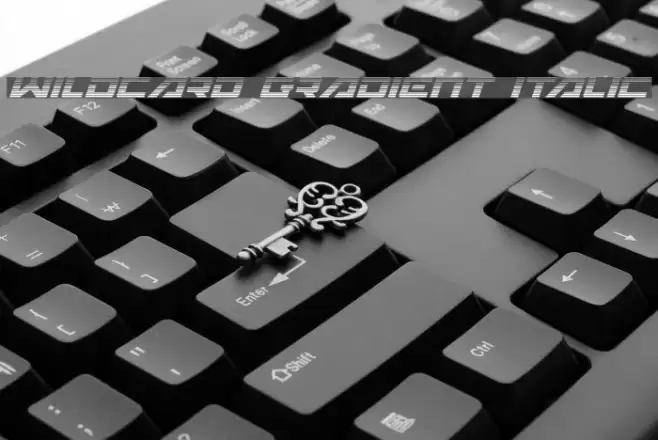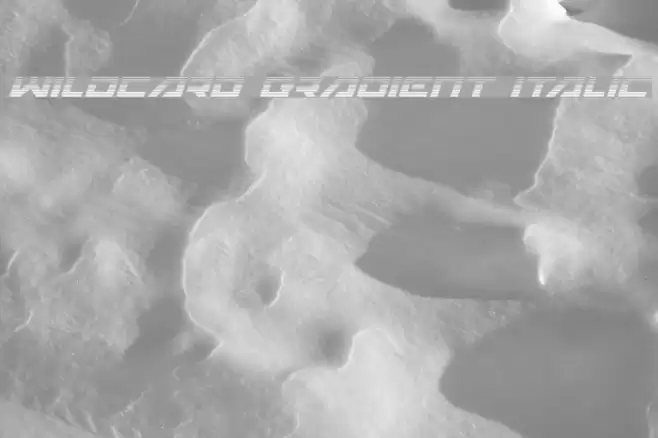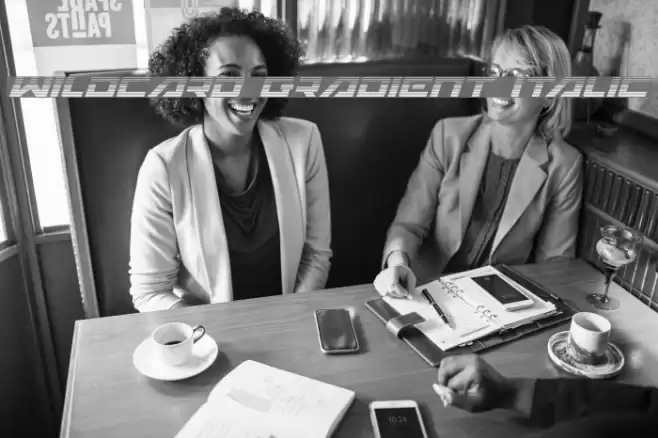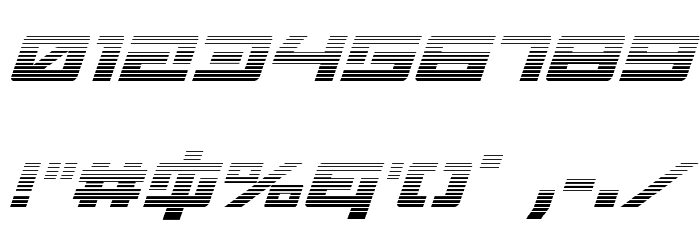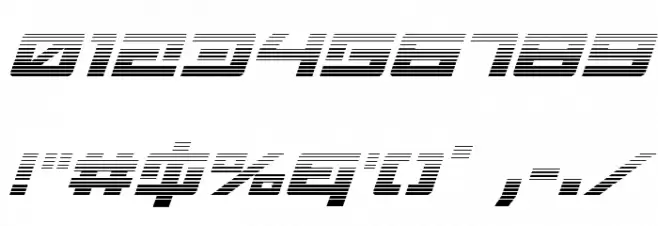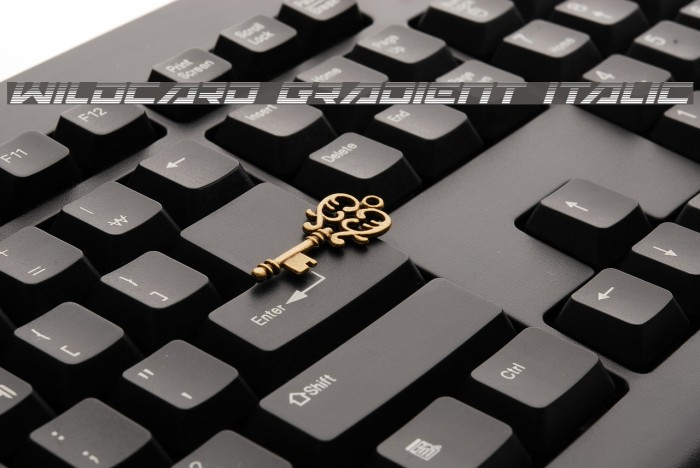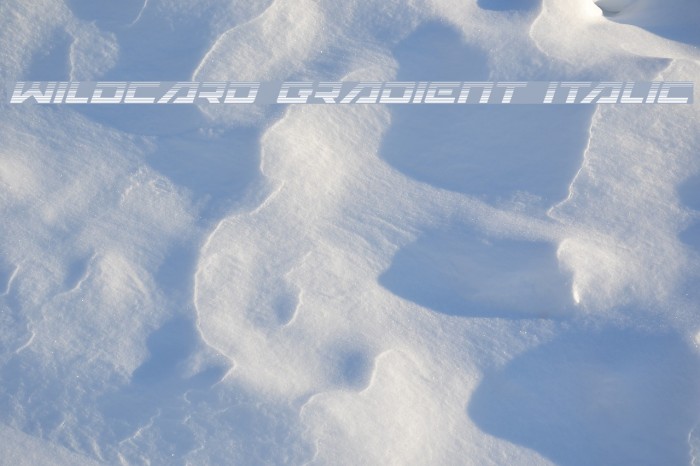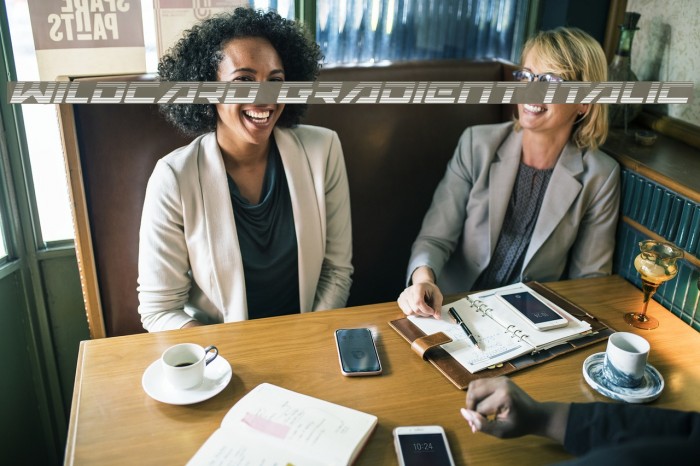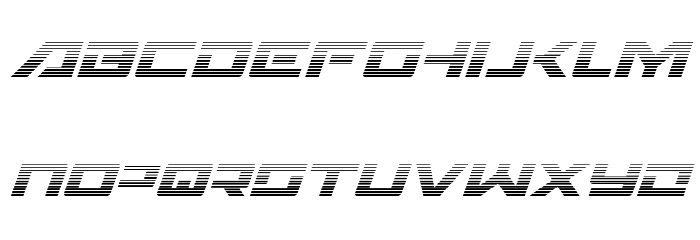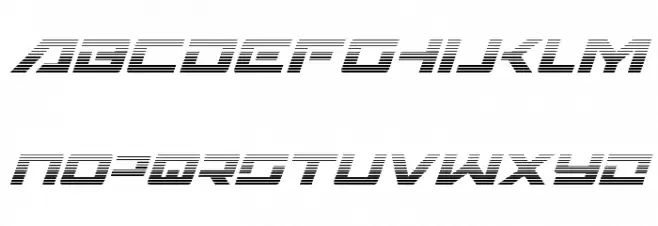
Wildcard Gradient Italic Font
Wildcard Gradient Italic Description
This font features a dynamic and futuristic design with a strong emphasis on horizontal lines and gradients. Each character is constructed with a series of parallel lines that create a sense of movement and speed. The italic slant adds to the dynamic feel, making it ideal for projects that require a modern and energetic look. The characters are bold and distinct, with a unique style that stands out in any design. The spacing between characters is tight, enhancing the cohesive appearance of the text. This font is perfect for creative projects that aim to convey innovation and forward-thinking.
A dynamic, futuristic font with bold, italicized characters and a strong horizontal line motif from Uncategorized fonts.
- Proposed Projects: Ideal for technology branding, sports team logos, futuristic posters, and video game titles.
- Character Spacing: Tight